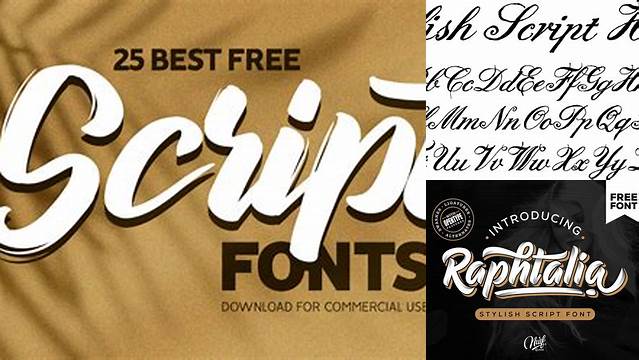
Free English Script Fonts: Download & Design Guide
Welcome, fellow design enthusiasts! Today, we're diving headfirst into the wonderful world of English script fonts, specifically focusing on the best part: free downloads! Whether you're a seasoned designer, a budding creative, or just someone who loves a good font, this guide is your ultimate resource. We'll explore everything from elegant calligraphy styles to playful handwritten scripts. Get ready to elevate your projects with these beautiful and versatile fonts. Let's get started, guys!
Download Free English Script Fonts for Your Next Project
Exploring Popular English Script Font Styles
Now that you know how to find and install fonts, let's dive into the exciting world of different script styles! Each style has its own unique character, perfect for different types of projects. We'll explore some popular categories, giving you a taste of what's out there. From elegant and formal to playful and casual, there's a script font to suit every design need. Get ready to discover your new favorites!
Elegant Calligraphy Fonts
Elegant calligraphy fonts embody grace and sophistication. They are inspired by the art of beautiful writing. They often feature delicate strokes and flourished letterforms. These fonts are ideal for wedding invitations and high-end branding. The best calligraphy fonts are crafted with meticulous detail. They mimic the flow of a skilled hand. These fonts add a touch of luxury to any project. The flowing lines and subtle variations give a sense of timeless elegance. Designers often use these fonts to evoke feelings of romance and sophistication. These are commonly found in stationery design. Calligraphy fonts are a must-have for projects needing an air of class. They will make your work stand out. Consider these fonts when you want to create a memorable visual statement.
Modern Handwritten Fonts
Modern handwritten fonts bring a personal and approachable touch. These fonts mimic real handwriting styles, which makes them more authentic. They often have a slightly imperfect or casual appearance. These fonts have become very popular in branding. They give a friendly and human feel to the designs. These fonts work well for logos, quotes, and social media graphics. The unique characteristics make them stand out. You can use them to create a warm, inviting atmosphere. Modern handwritten fonts are suitable for a variety of projects, from websites to print designs. They’re a great choice when you want to show creativity. Use them to add a personal touch to your project.
Vintage Script Fonts
Vintage script fonts transport us to another era. They are inspired by classic lettering styles. These fonts often have a nostalgic charm and a sense of history. They are perfect for projects with a retro or antique theme. Vintage script fonts are used in branding and packaging. They are a great choice when you aim for a vintage feel. This style often includes ornate details and decorative elements. They evoke feelings of the past. They can add a unique character to any project. These fonts often bring a touch of old-world elegance and charm. If you want to give your project a retro feel, consider these fonts.
- What are some tips for effective font pairing? Pair script fonts with sans-serif or serif fonts for a balanced look. Avoid pairing script fonts with other highly decorative fonts. Consider the overall tone and visual hierarchy.